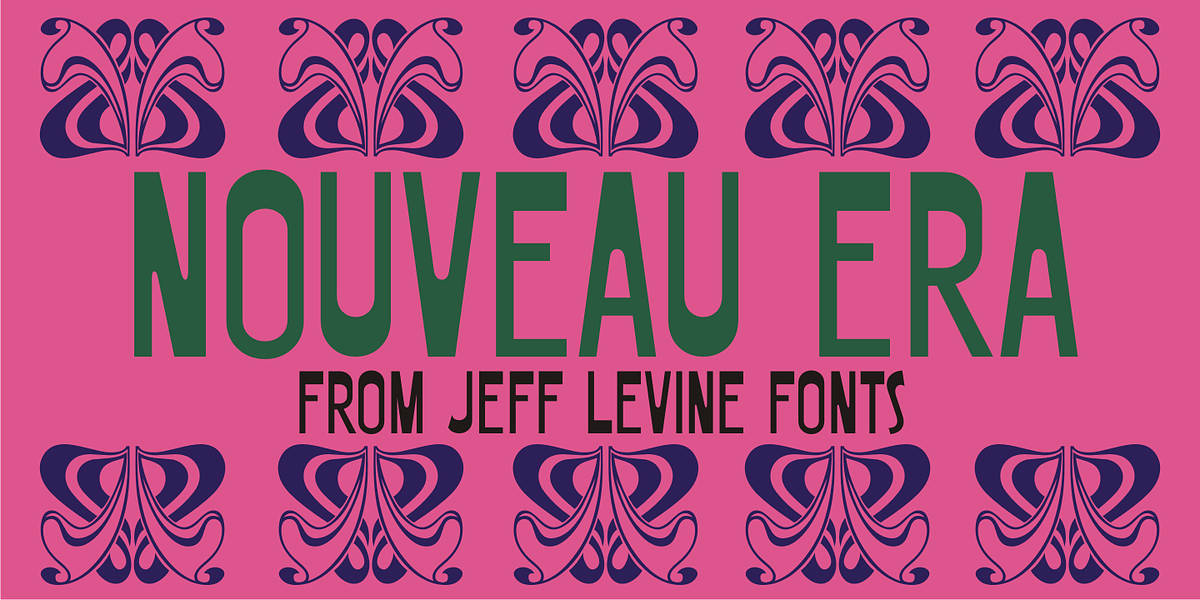
Nouveau Era JNL
Nouveau Era JNL was adapted from the title of a hand-lettered advertisement found on the back of a 1920s-1930s piece of vintage sheet music.